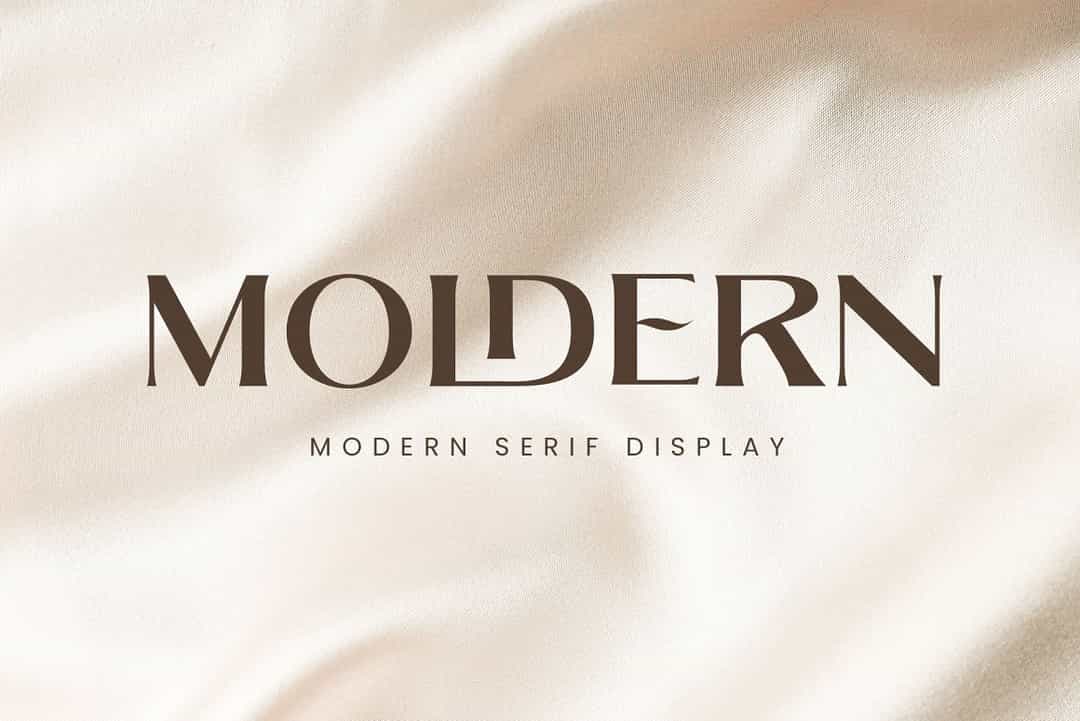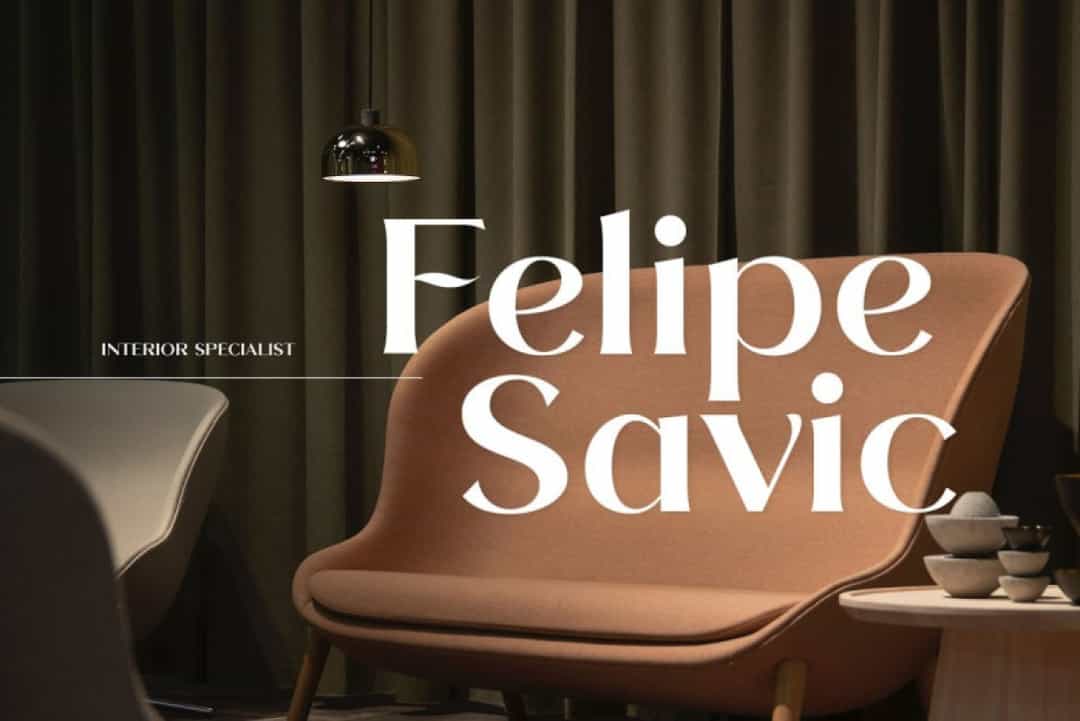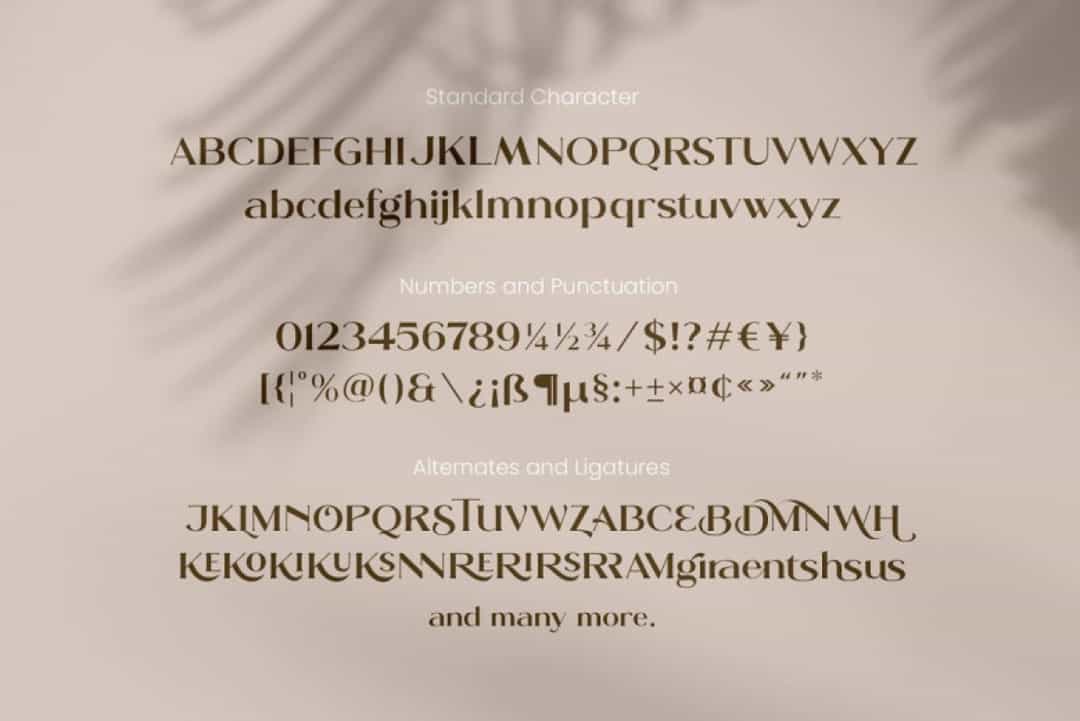
Moldern is a modern screen serif typeface featuring stylish exploration of ligatures. Moldern blends vintage, decorative and minimalist design elements together in an attractive font weight to produce elegant results, ideal for display purposes.